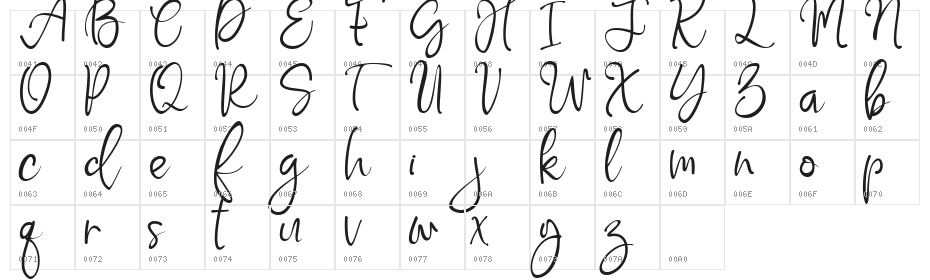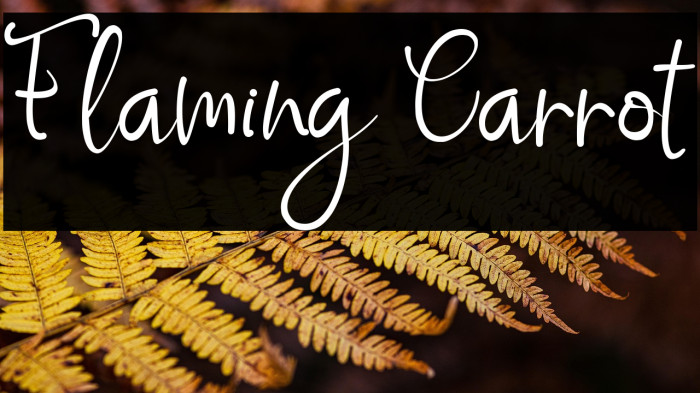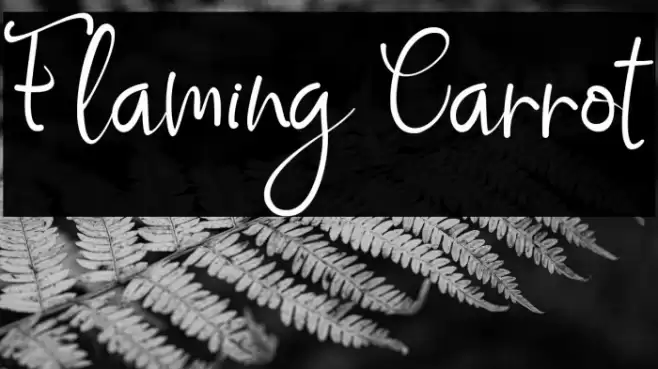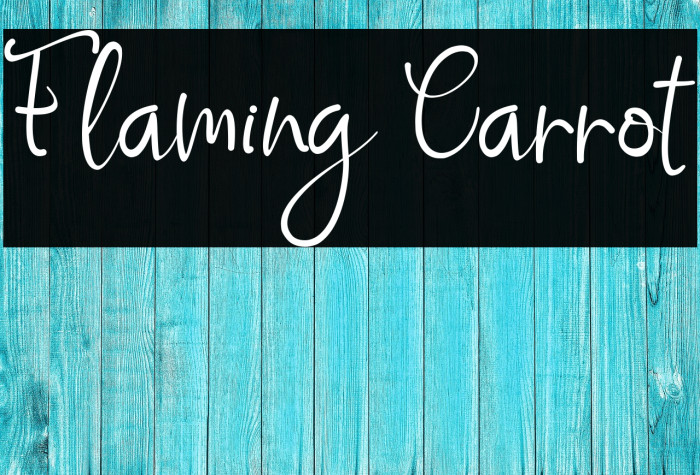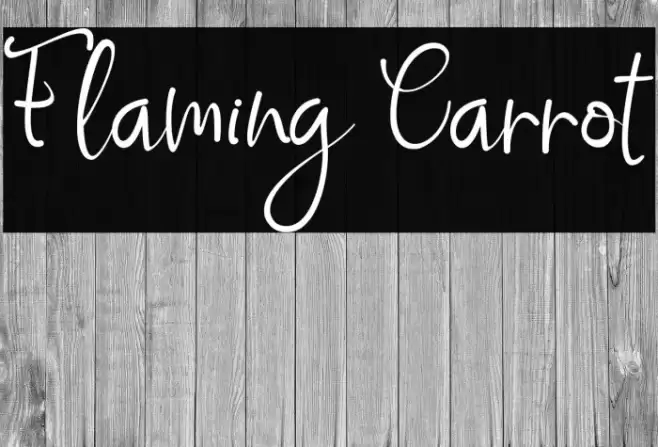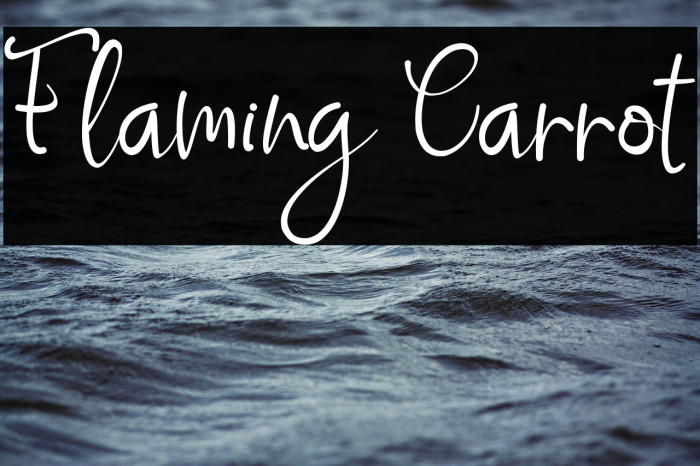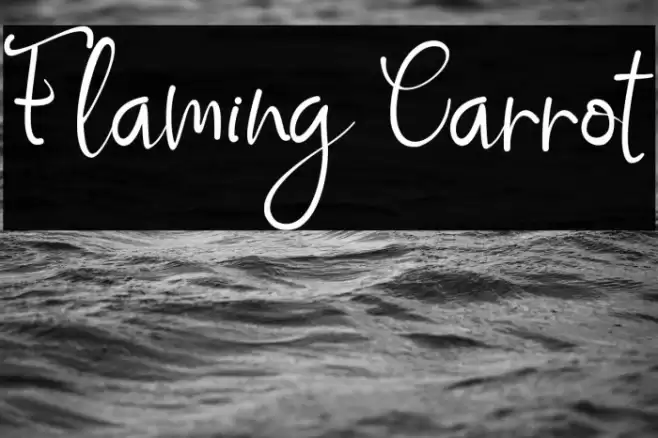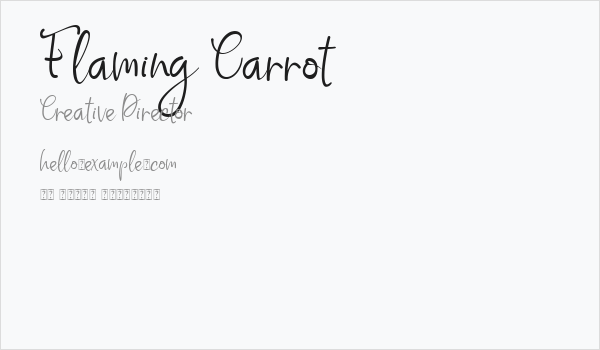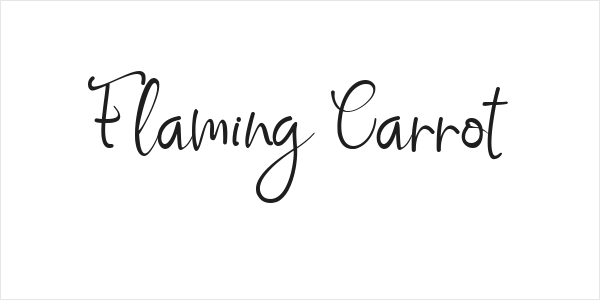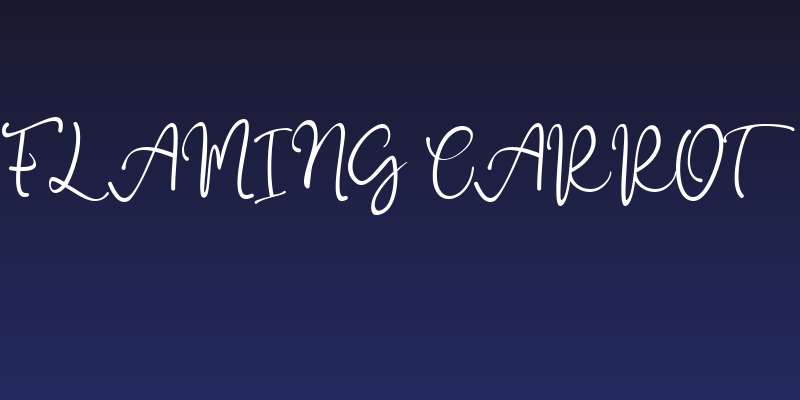
Flaming Carrot Font
Flaming Carrot Description
This font features a lively and energetic script style, characterized by its fluid, cursive strokes and playful loops. The uppercase letters are bold and expressive, with a slight slant that adds to their dynamic appearance. The lowercase letters maintain a consistent flow, with some characters extending below the baseline, enhancing the font's whimsical nature. The overall design is reminiscent of handwritten calligraphy, offering a personal and artistic touch. The font's unique style makes it suitable for creative projects that require a touch of elegance and flair.